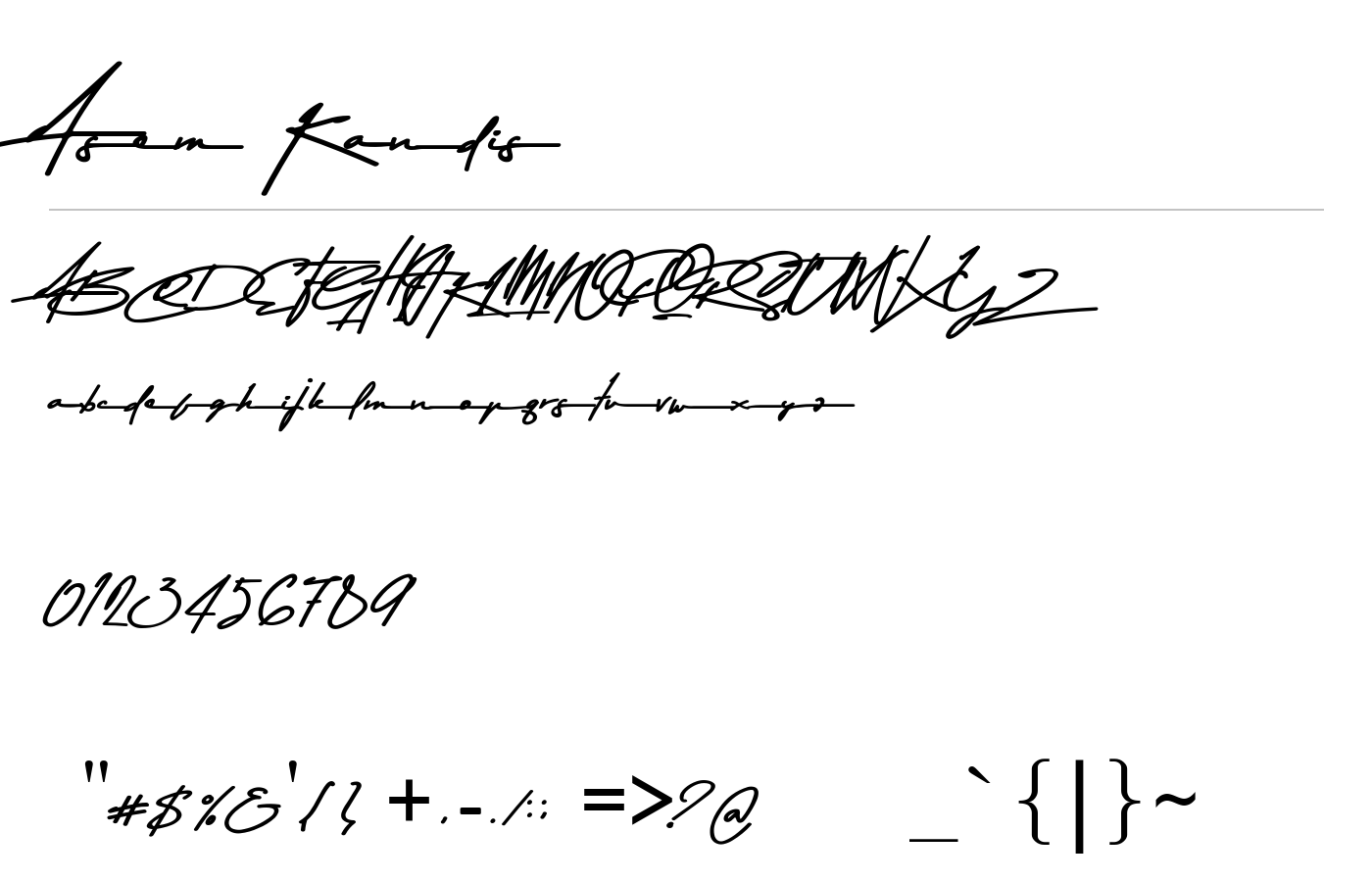
Asem Kandis is a sleek, modern script font that mimics natural handwriting with a stylish, casual flair. Its thin, fluid strokes and slightly irregular, connected letterforms create an elegant yet relaxed feel, making it ideal for personal branding, fashion, invitations, and creative projects that want a touch of genuine personality. This font works best in display uses where a sophisticated and approachable handwritten look is desired.
Asem Kandis Font
About Asem Kandis Font
| Font family | Asem Kandis Font |
| Designer | lemoncraft2018 |